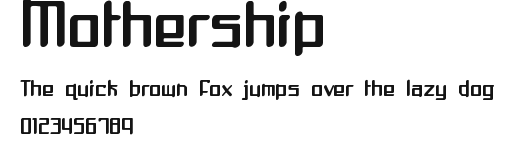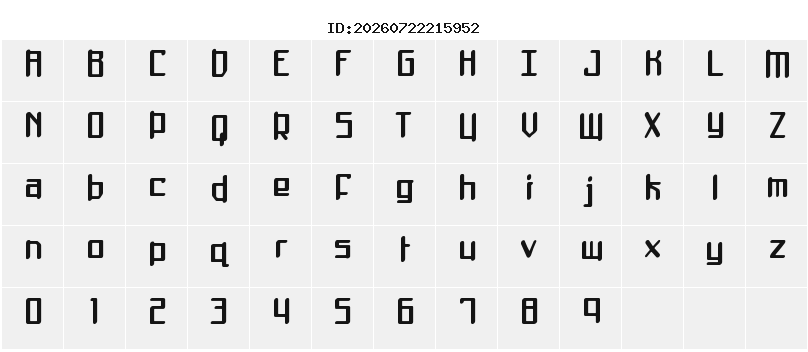
About Mothership.ttf
Mothership.ttf is a modern, elegant sans-serif font designed for ultimate readability and visual harmony. Perfect for branding, headlines, web design, and print materials.